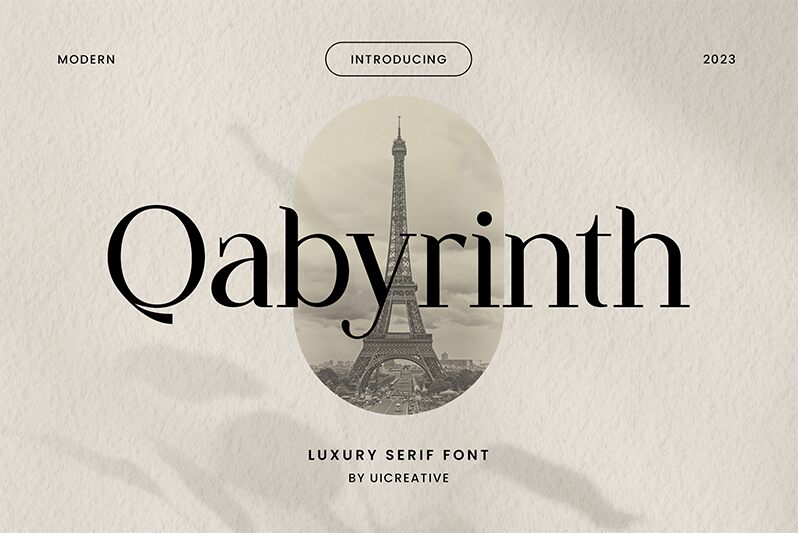
Qabyrinth
Qabyrinth, designed by UI Creative, stands out as an elegant serif font that masterfully blends classic sophistication with modern flair. Its delicate strokes and refined curves bring a sense of timeless beauty to any textual content, making it ideal for projects that demand both readability and aesthetic appeal.
The graceful serifs and balanced letterforms make Qabyrinth particularly suited for branding, editorial designs, and sophisticated print media. Whether used in logos, magazine headers, or wedding invitations, this font adds a touch of class and distinction. Its distinctive style ensures that it captures attention while maintaining legibility across various applications.